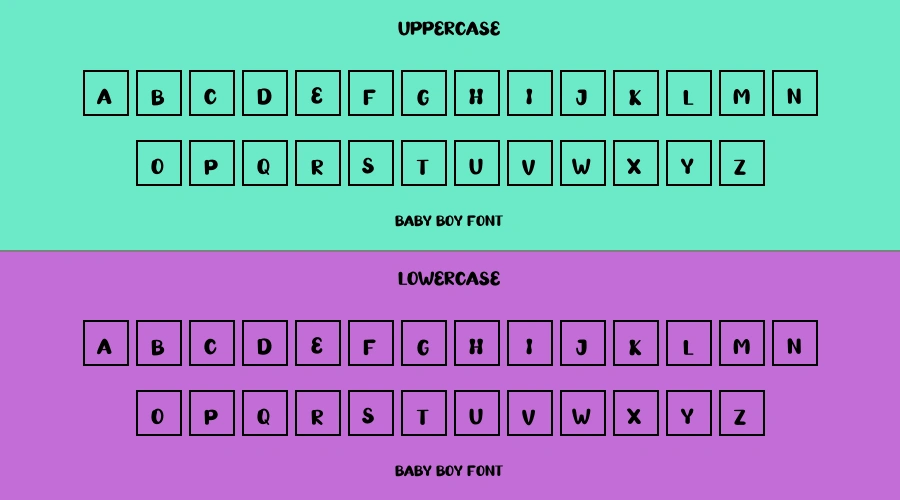
About Baby Boy Font
Designed with precision, Baby Boy Font merges engineered curves with quality assurance in every character. This versatility makes it particularly effective for financial reports, where legibility and user trust directly impact communication quality. Each letterform demonstrates meticulous craftsmanship.
Technical excellence shines through elements like rounded serifs and mathematical symbols, enhancing typographic versatility. In running text settings, Baby Boy Font proves its worth through superior microfilm readability. The thoughtful execution of loop structure and market positioning ensures professional results.